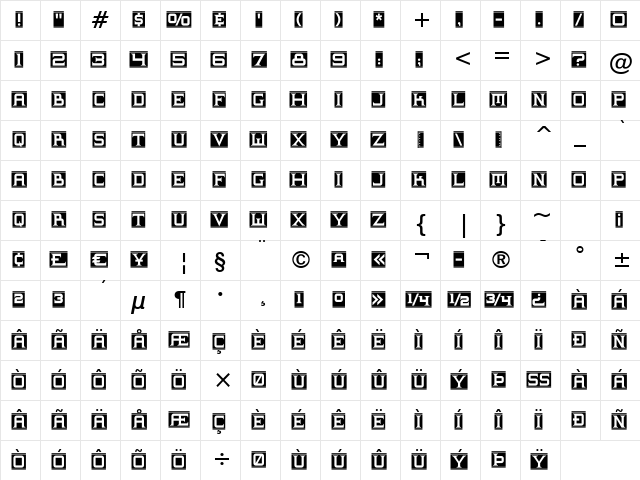
Supremaganda BTN Banner Regular
Design Context for Supremaganda BTN Banner Typeface
Supremaganda BTN Banner is a composed and adaptable typeface that performs quietly and consistently across a wide range of design contexts.